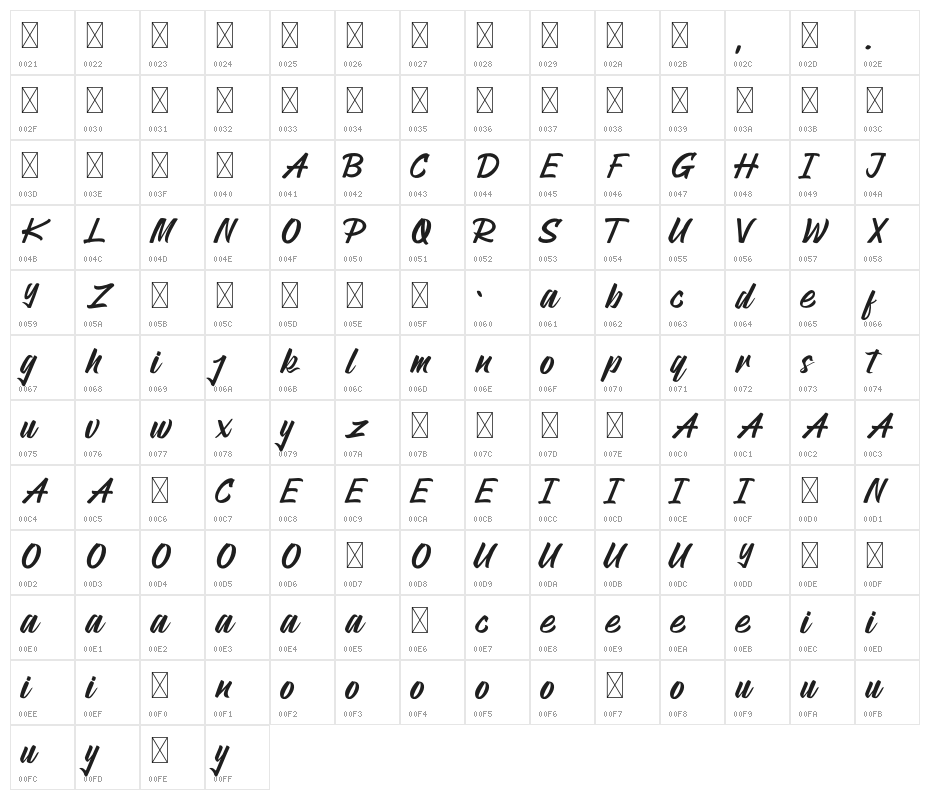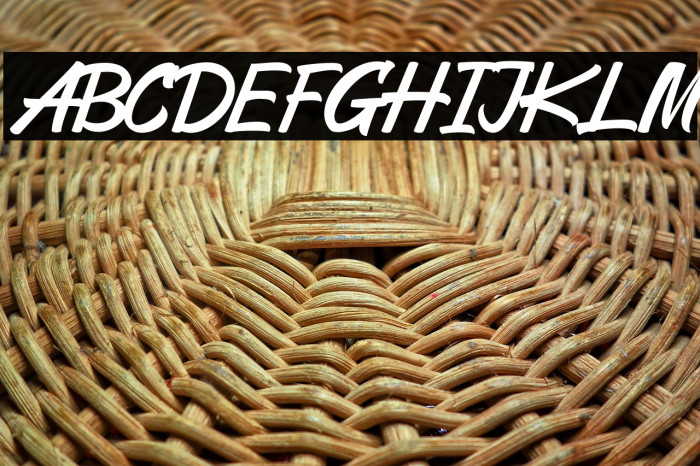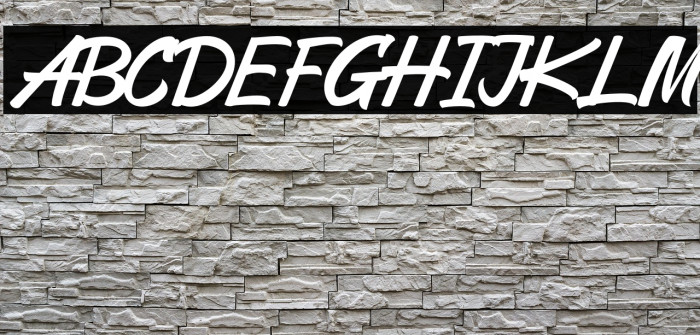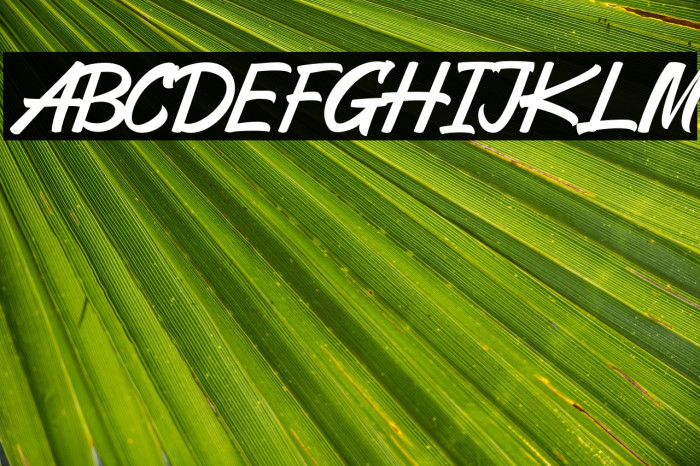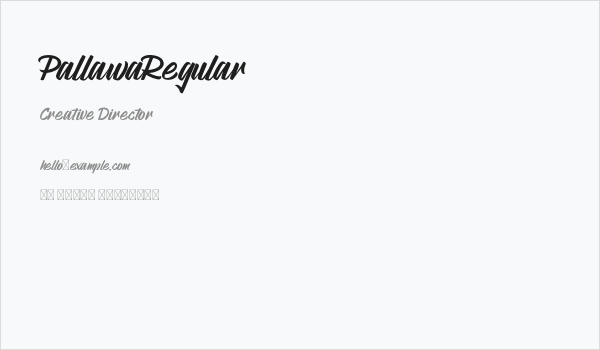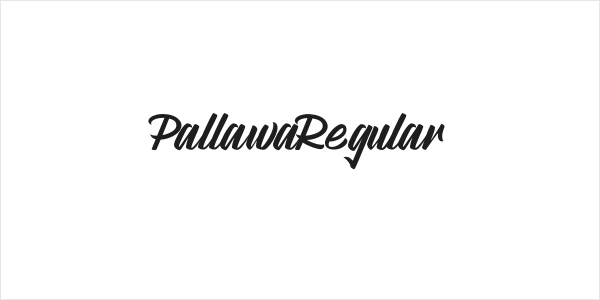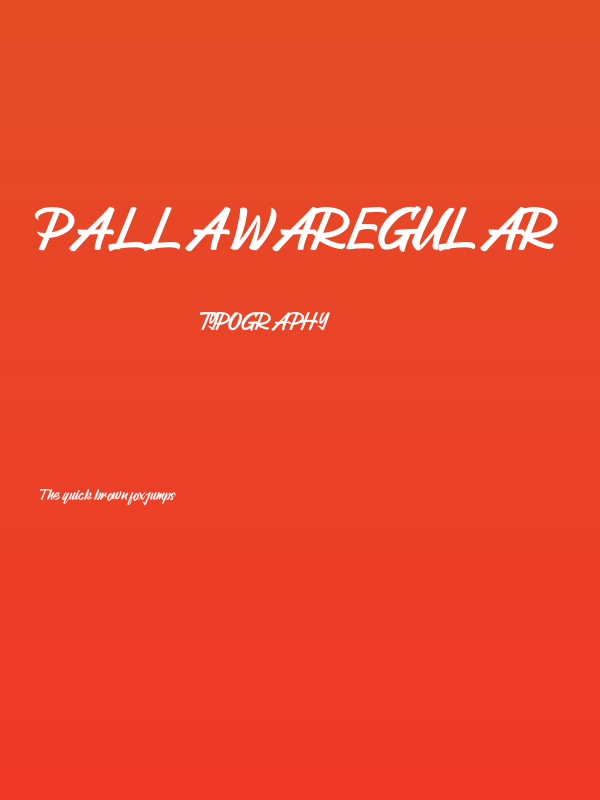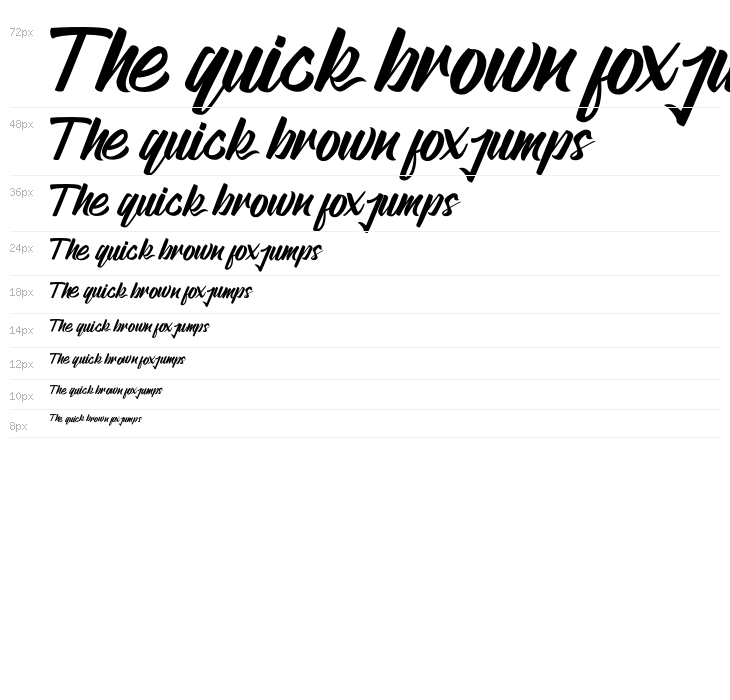
PallawaRegular Font
PallawaRegular Description
This font features a bold, cursive style with a strong emphasis on fluidity and movement. The characters are connected, giving it a handwritten appearance that is both elegant and dynamic. The uppercase letters are slightly larger and more pronounced, while the lowercase letters maintain a consistent flow. The strokes are thick and uniform, providing a sense of strength and confidence. The overall design is modern yet retains a classic script charm, making it versatile for various applications.